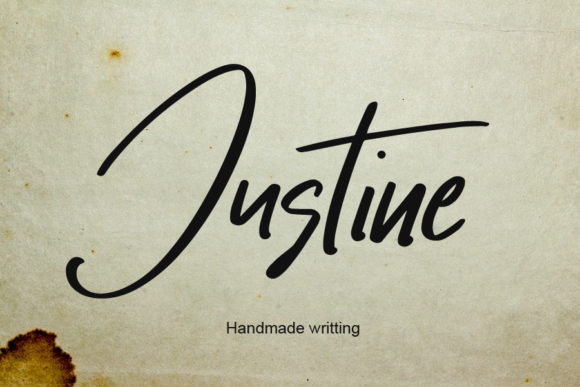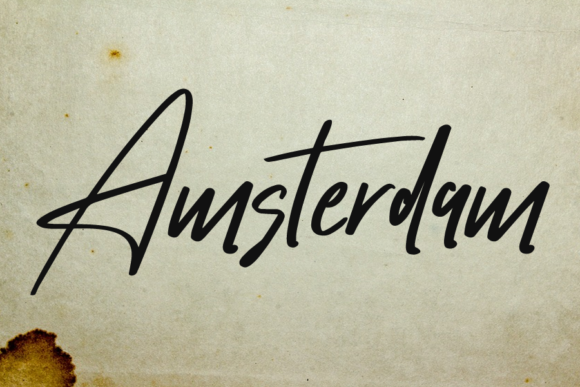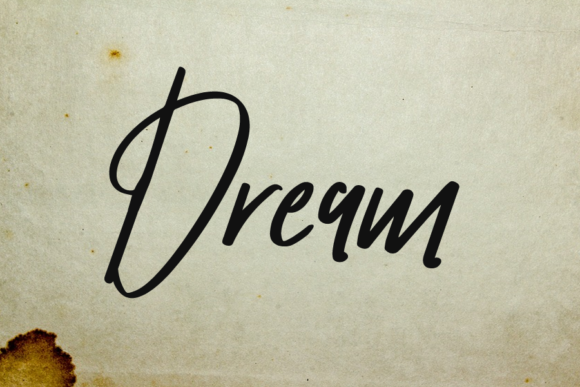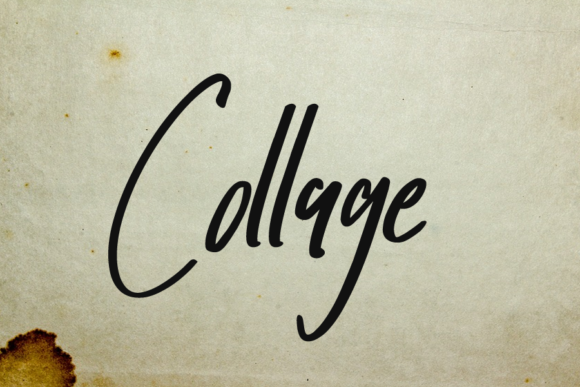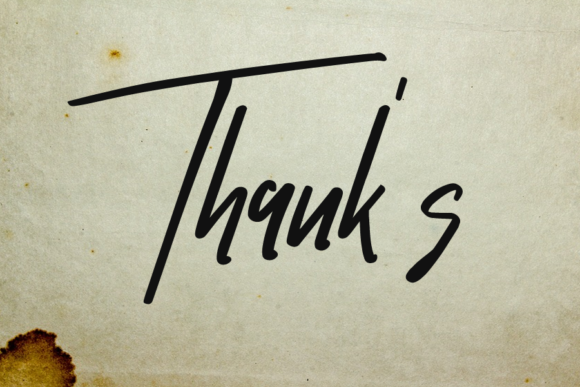
Justine Font
Introducing Justine, a contemporary and sophisticated signature font that exudes modern elegance. Designed with exquisite ligatures and charming alternates, this font boasts a beautiful stroke that adds a touch of grace to any project. Justine is a versatile choice, perfectly suited for a range of applications, including wedding invitations, fashion cards, and beyond.
What sets Justine apart is its seamless blend of modernity and class. The carefully crafted ligatures enhance the font’s visual appeal, creating a flowing and cohesive look that adds a luxurious touch to your designs. The lovely alternates further contribute to the font’s versatility, allowing you to customize and tailor your text to suit the tone and style of your project.
Justine’s beautiful stroke lends a sense of sophistication, making it an ideal choice for wedding invitations. Whether you’re planning a traditional ceremony or a contemporary celebration, Justine brings a touch of timeless elegance to your invitation design, setting the perfect tone for the special day.
Fashion cards come to life with the stylish allure of Justine. Its modern and classy signature style adds a high-end touch to your fashion-related projects, making it an excellent choice for branding, promotional materials, or any design that requires a chic and sophisticated aesthetic.
The font’s versatility ensures that Justine is not limited to specific applications. Its clean lines and elegant curves make it suitable for a variety of projects, allowing you to elevate your designs with a touch of refinement. From business cards to upscale event promotions, Justine effortlessly adapts to various contexts.
In summary, Justine is more than just a font; it is a statement of modern elegance and timeless class. With beautiful ligatures, lovely alternates, and a stroke that exudes sophistication, Justine is the perfect choice for wedding invitations, fashion cards, and any project that demands a touch of refined style. Elevate your designs with the distinctive charm of Justine, where contemporary aesthetics meet timeless elegance.